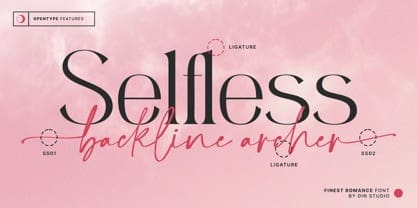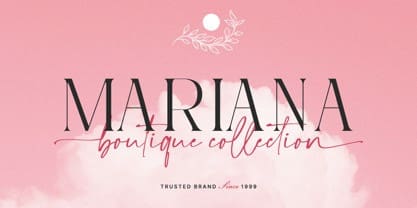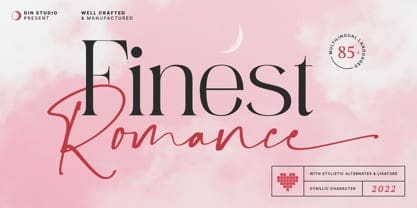
Finest Romance Font Duo
Finest Romance Font Duo a captivating font duo that combines a modern serif with script font. The serif font in FinestRomance is crafted in a modern style, exuding sophistication and class. Each letter is meticulously designed with clean lines and elegant curves.
In contrast, the script font in Finest Romance is designed to resemble cursive handwriting. Each letter flows gracefully into the next, creating a sense of fluidity and rhythm that is both captivating and inviting.